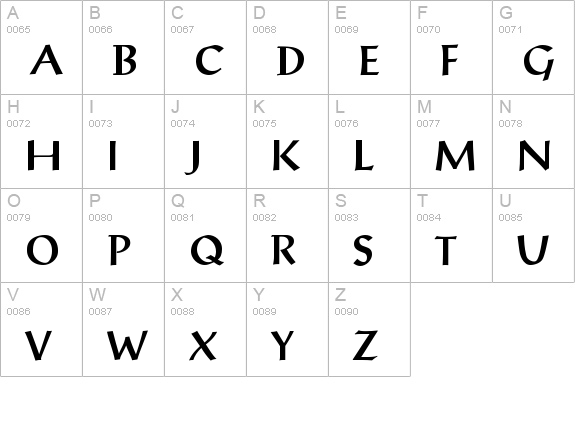
ProseAntique Bold Font Details
ProseAntique Bold is a strong, high-contrast variant in the ProseAntique typeface family \xE2\x80\x94 well suited to headlines, attention-grabbing titles, and strong calls-to-action.
ProseAntique Bold font captures the essence of timeless elegance with its sophisticated and classic design. Each letter is meticulously crafted to exude a sense of refinement and grace, making it an ideal choice for projects that require a touch of sophistication. The bold weight of this font commands attention while remaining effortlessly readable, making it perfect for both headers and body text. The ProseAntique Bold font is a versatile typeface that can be used across a variety of design projects, from invitations and stationery to branding and advertising. Its clean lines and balanced proportions create a harmonious visual appeal that is sure to elevate any design. Best of all, ProseAntique Bold font is available for free download at FontsMarket.com, allowing you to access this premium typeface without any cost. Don't miss out on the opportunity to enhance your projects with the timeless beauty of ProseAntique Bold font. Download it today and add a touch of sophistication to your designs.